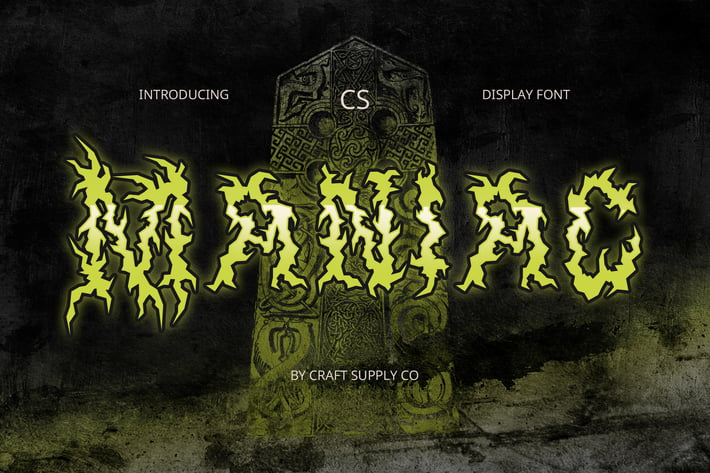
Maniac – Black Metal Font
CS Maniac – Black Metal Font: Unleash Darkness and Chaos
A Brutal Black Metal Display Font
CS Maniac is an extreme Black Metal display font, featuring razor-sharp lines, chaotic forms, and intricate details reminiscent of twisted branches and piercing thorns. Designed to embody the raw aggression and darkness of metal culture, it delivers an intense visual impact for bold and rebellious designs.
Aggressive and Unconventional Letterforms
With jagged edges and distorted shapes, CS Maniac pushes the boundaries of traditional typography. Its unconventional letterforms exude mystery and brutality, making it a perfect fit for metal band logos, underground zines, and dark-themed branding.
Perfect for Gothic and Horror Aesthetics
This font is not just for metal—it’s ideal for gothic, horror, and occult-inspired projects. Whether used for concert posters, album covers, or eerie merchandise, CS Maniac amplifies the sinister and extreme atmosphere needed to captivate a hardcore audience.
Command Attention with a Dark, Uncompromising Look
CS Maniac is designed for those who dare to break the rules. Its aggressive, thorn-like structures and uncompromising sharpness ensure it stands out in any intense and high-energy visual composition, making it an essential choice for extreme and alternative design styles.